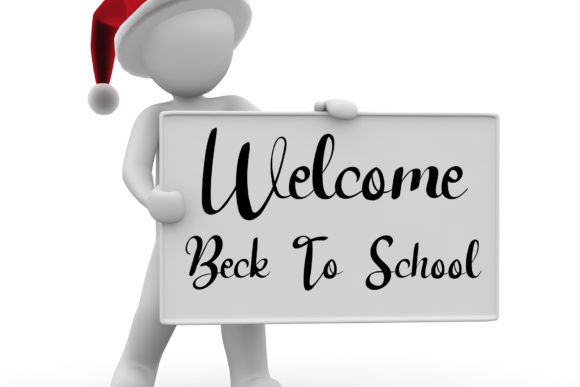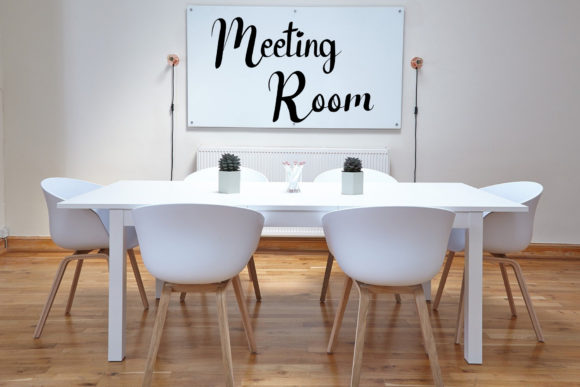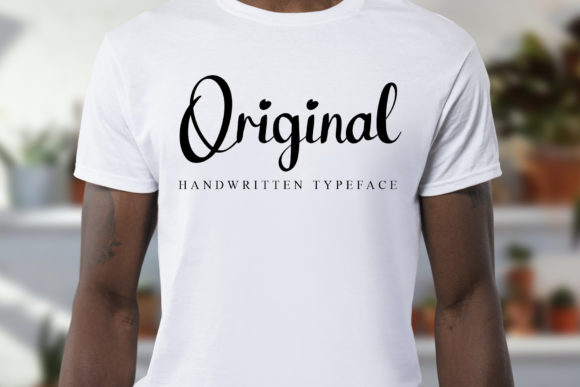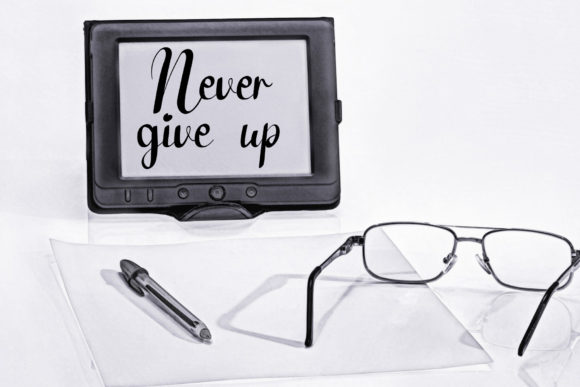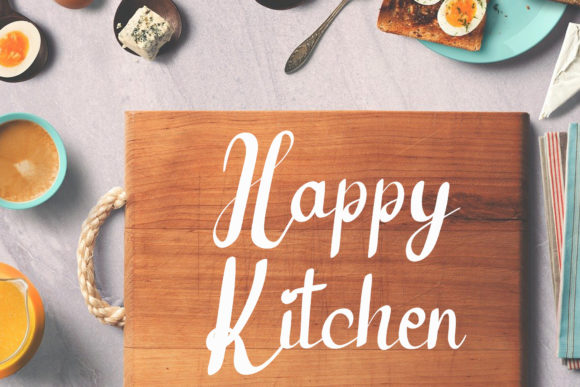
Monogram Signature Font
About Monogram Signature Font
Monogram Signature is a sweet and delicate handwritten font. Dainty and joyful, this font will be ideal for writing wedding invitations, cards or any other design that may need a romantic, personalized touch!